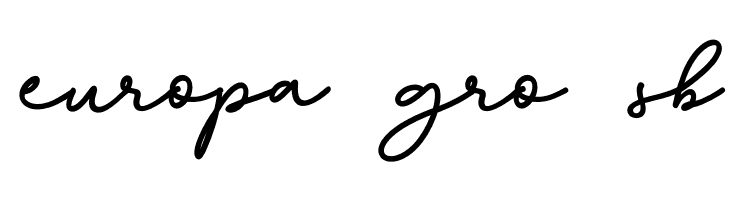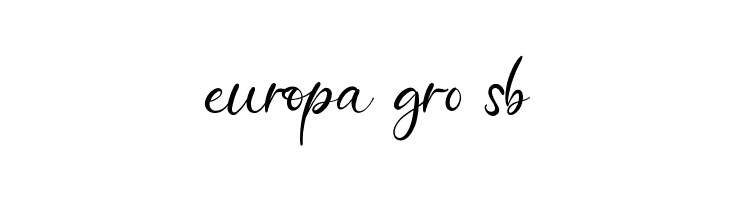
A lively and elegant script font with fluid, expressive letterforms.
A bold, expressive handwritten font with dynamic, cursive strokes.
An elegant script font with flowing, interconnected letters and high contrast.
A bold, flowing script font with smooth, rounded edges and consistent stroke width.
A bold, italic script font with high contrast and dynamic flow.
A flowing, cursive script font with elegant, interconnected letters.
A bold, flowing script font with elegant, cursive strokes.
A bold, expressive script font with fluid, interconnected strokes.
A bold, handwritten-style font with smooth curves and a playful elegance.
An elegant, flowing script font with calligraphic influences and decorative flourishes.